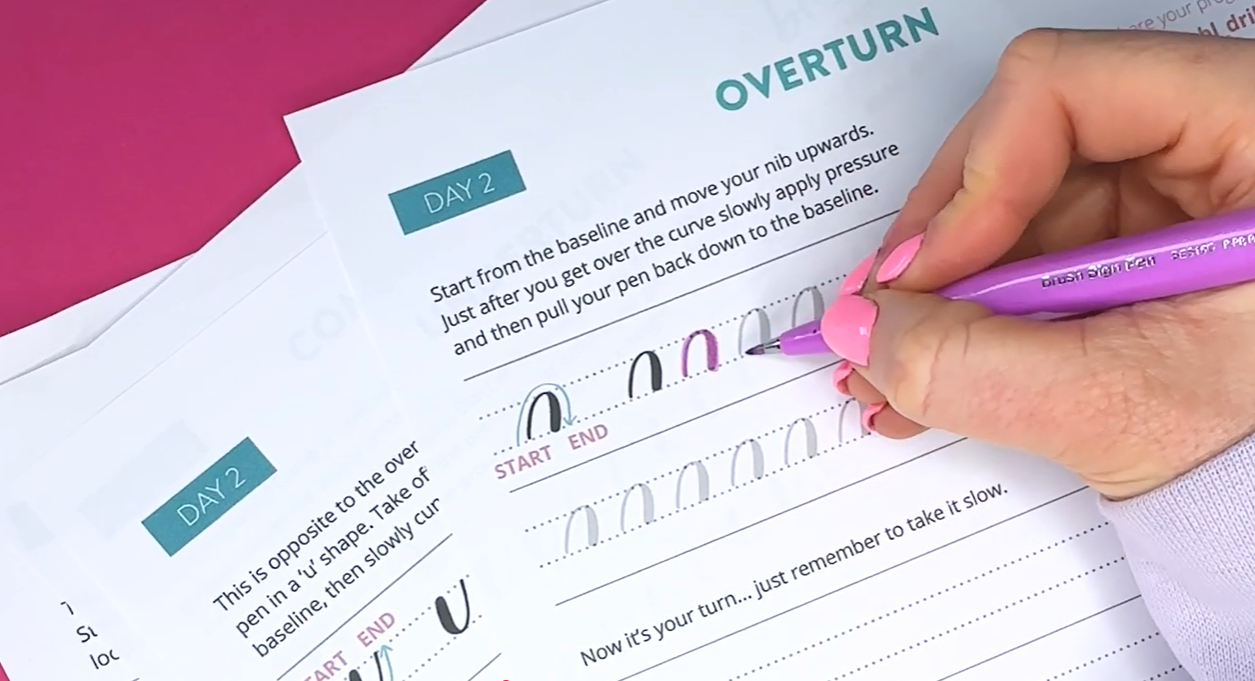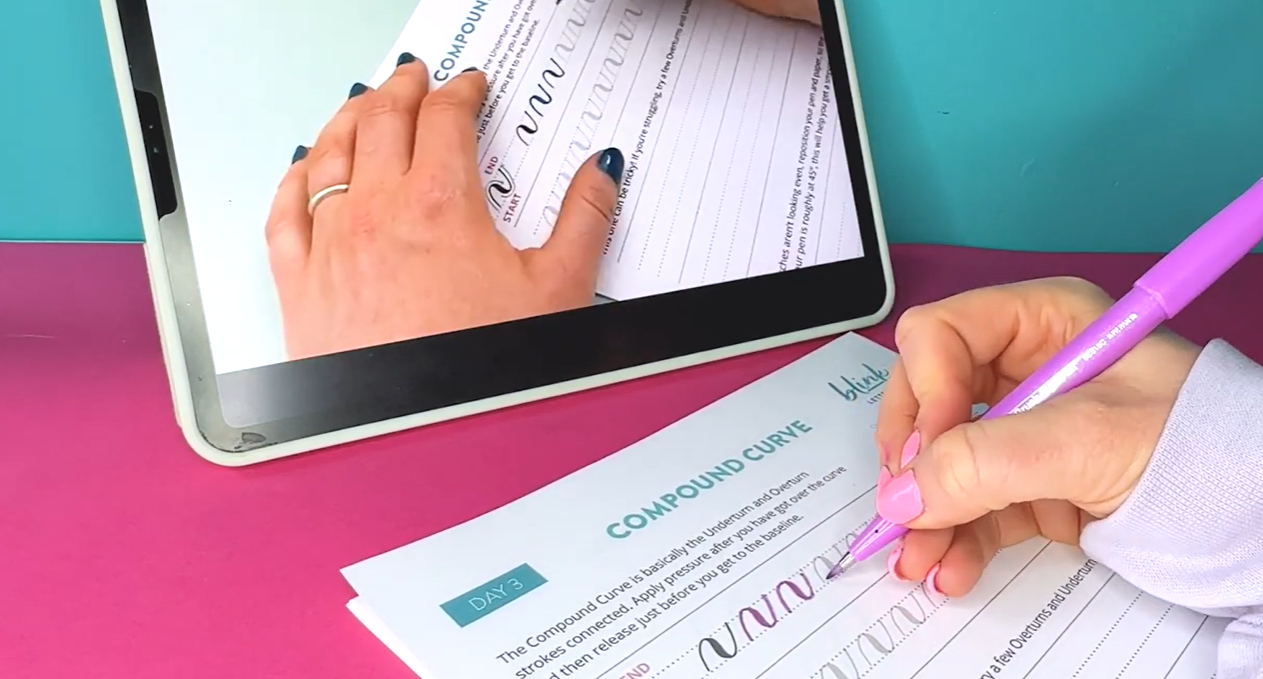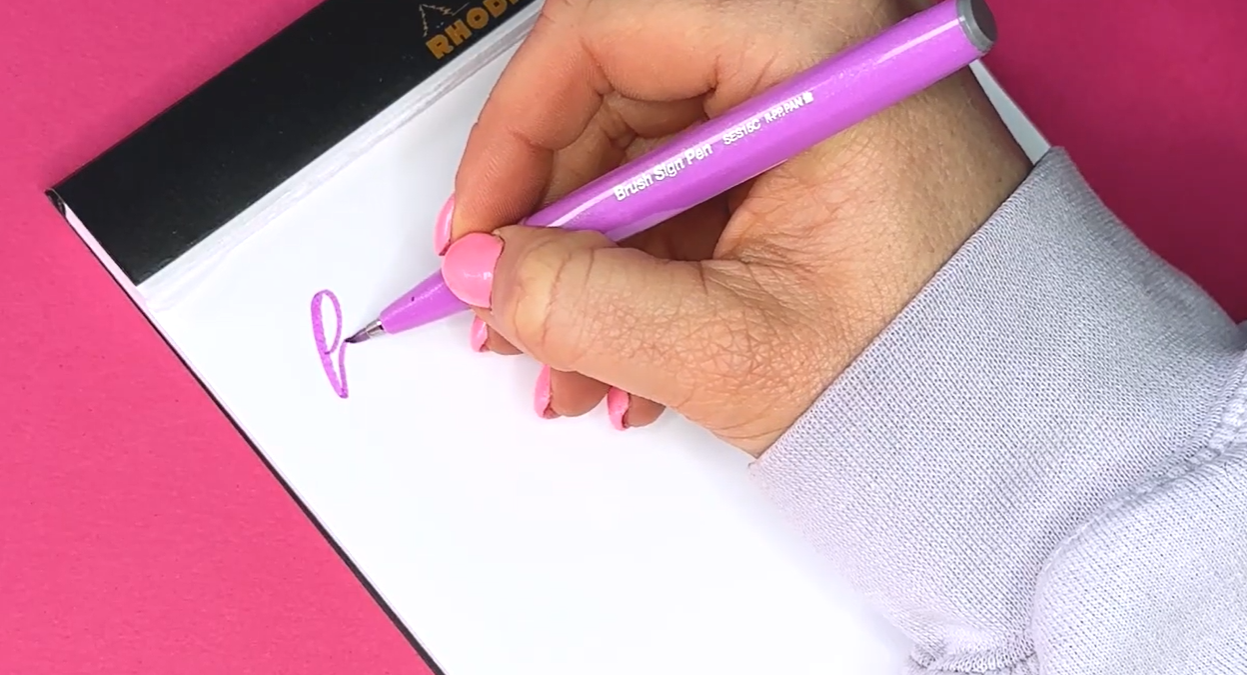
Are you dreaming of creating beautiful, flowing calligraphy letters but unsure where to start, or perhaps you've already begun and something just isn't clicking? I've been there. When I first started learning calligraphy, I made four pretty big mistakes that held me back, and today I'm sharing them so you don't have to go through the same thing!
I've been doing calligraphy for over eight years and teaching for over six, and in that time I've taught over 3,000 people both online and in person. But trust me, I was not always good at calligraphy. I was sat exactly where you are now, trying to figure out how on earth to get started.
Mistake #1: Buying the Wrong Pens
The very first thing I did when I started learning calligraphy was go out and buy quite a few pens and honestly, I bought the wrong ones. I had a calligraphy kit with a cool-looking nib, but it turned out to be a flat-tipped nib, which meant I couldn't create the style of calligraphy I'd seen online. I also picked up a couple of brush pens and quickly realised that the big brush pens I'd chosen were just too hard to control.
Close-up of pens being discussed (flat nib vs brush pens)
There's a bit of an opposite problem these days. Back when I started, it was hard to even find calligraphy tools in the UK and a lot of the people I followed online were based in America, so being told to "go to Hobby Lobby" wasn't exactly helpful! Now the issue is almost the other way: there are SO many pens out there that it's completely overwhelming and you just don't know where to start.
How to avoid this mistake: Keep it simple. If you have limited access to calligraphy tools, you can genuinely just start with a pencil (I have a whole YouTube video on this!). If you're ready to invest in a couple of calligraphy pens, I'd recommend sticking to the Pentel Brush Sign Pen. They have a small nib which is much easier to control, they come pre-filled with ink so there's no messy dipping, and they're durable enough to use on different types of paper without fraying.
Pentel Brush Sign Pen being held/used
Mistake #2: Jumping Straight Into Writing Words
When I first started, I found a bunch of calligraphers on Instagram and YouTube and I was completely hooked watching them create beautiful words. So naturally, I just... did the same. I sat down with my pen and tried to write beautiful words straight away. In reality? They were far from beautiful.
After a few months of feeling frustrated that my letters weren't looking anything like the talented calligraphers I was following, I started to actually research how to learn, rather than just watching pretty videos obsessively. That's when I discovered calligraphy drills and honestly, it was a game changer. Once I understood what they were and started practising them consistently, my letters became so much more consistent, and my confidence grew so much faster.
Milly demonstrating calligraphy drills on paper
How to avoid this mistake: If you've already started trying to write letters and words - stop, put your pen down, and take a step back to learn all about calligraphy drills first. I have a whole video explaining what they are.
Mistake #3: Comparing Myself to Others
This one is a biggie. I discovered calligraphy through Instagram and YouTube, and I was obsessively watching these incredible calligraphers and feeling so frustrated with myself that I wasn't as good as them.
But here's the thing, everyone's journey is different. Not just in how long they've been doing calligraphy, but in how much time they have to actually practise. Some of the people I was comparing myself to were students with hours to practise every day. Others had been doing it for years and years - you just forget that in the moment. And if I'm honest, all the time I spent scrolling on Instagram was time I could have been practising and actually improving!
How to avoid this mistake: Limit how much time you spend scrolling without actually doing anything. Instead of just double-tapping a video you love, try to really analyse it - what is it about those letter forms that you like? If you've been practising your drills and you're feeling confident, why not try creating something similar yourself? (And if you do share work inspired by another calligrapher online, always tag them as your inspiration - it's just good practice!)
I'd also really encourage you to surround yourself with other people who are learning calligraphy too. Whether that's an in-person workshop, an online community, or just inviting a friend round to sit and do it together. There's nothing better than being cheered on by fellow calligrapher friends. Calligraphy might be a solo hobby, but it doesn't have to feel lonely!
Mistake #4: Not Learning From a Calligraphy Tutor Sooner